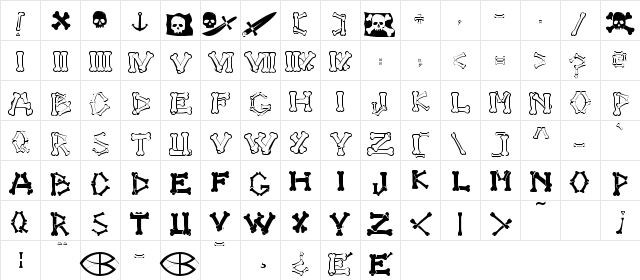
4 DOGS Regular
Design Context for 4 DOGS Typeface
4 DOGS is a composed and adaptable typeface that performs quietly and consistently across a wide range of design contexts.